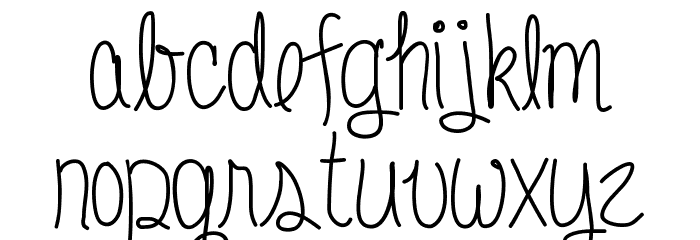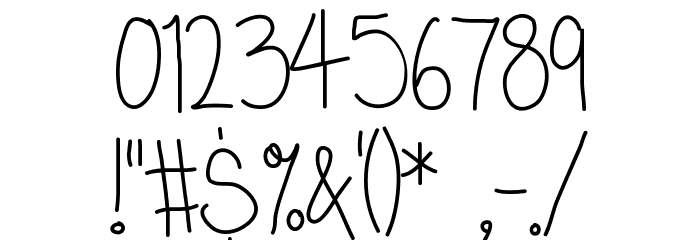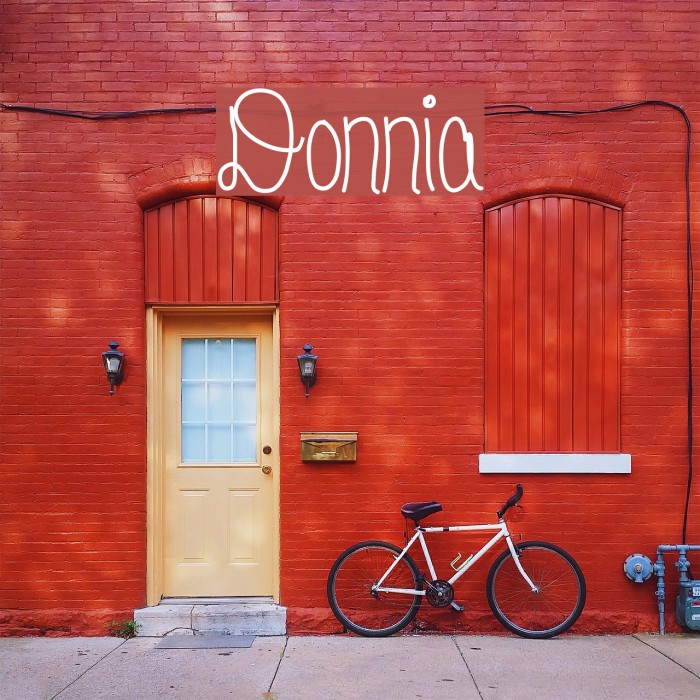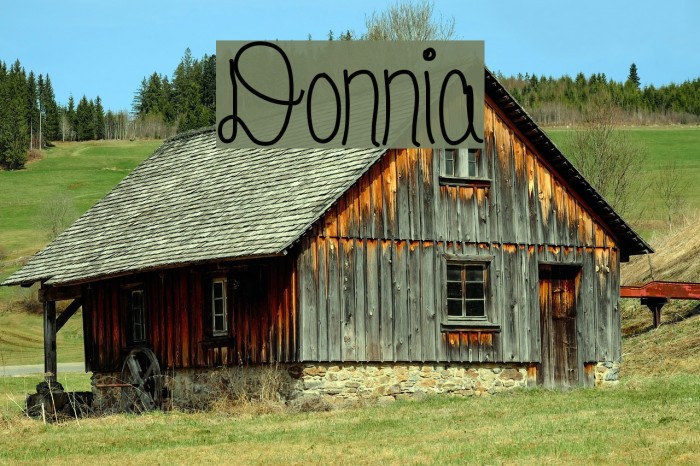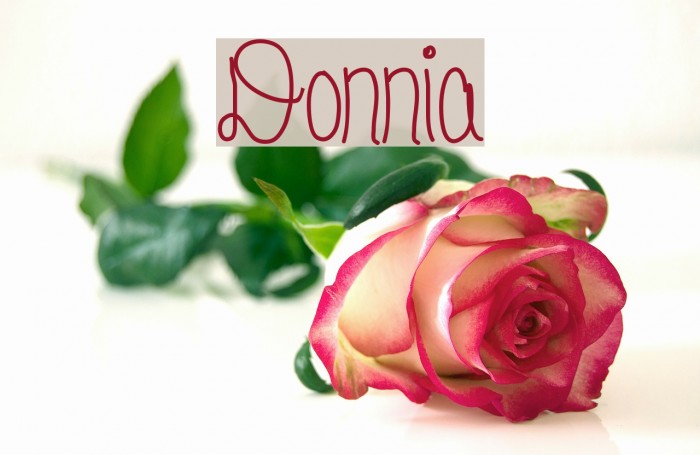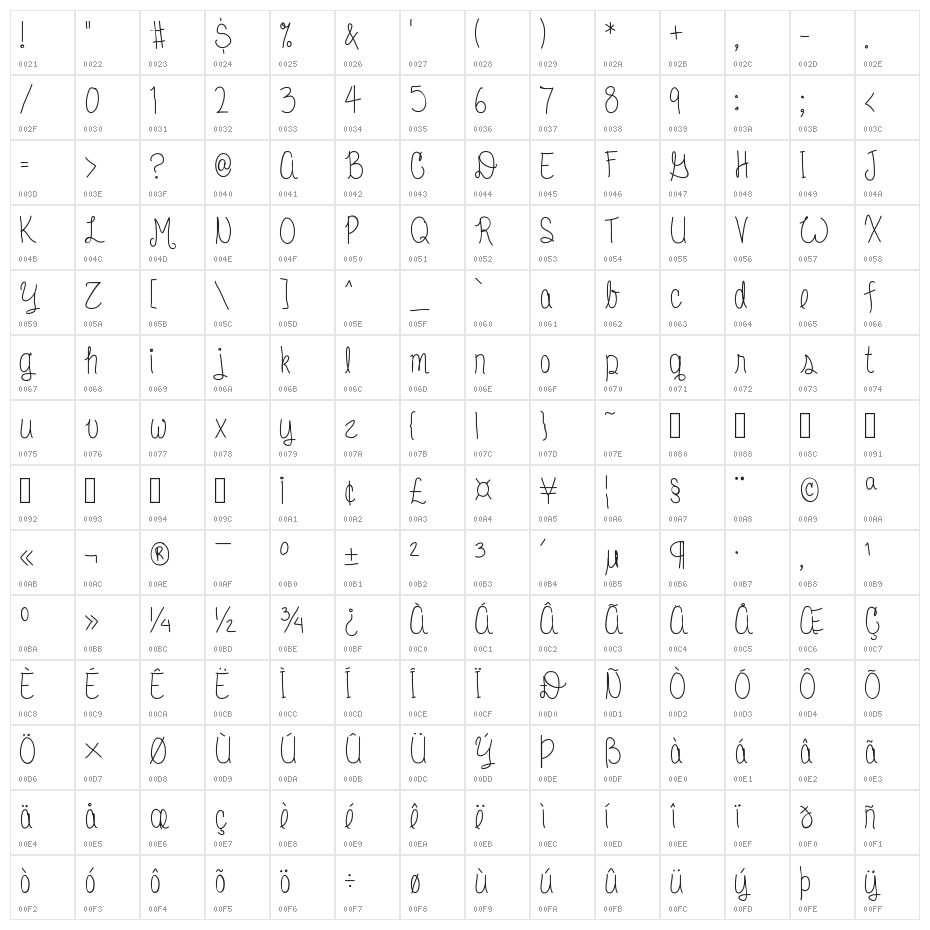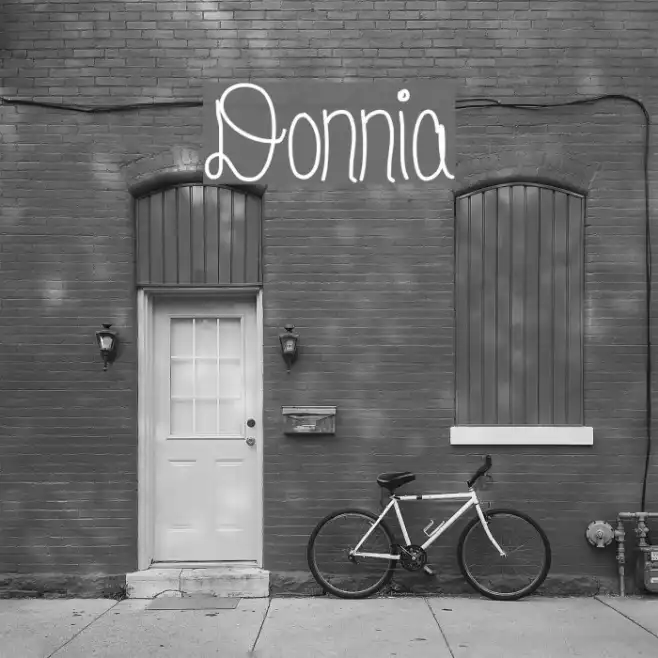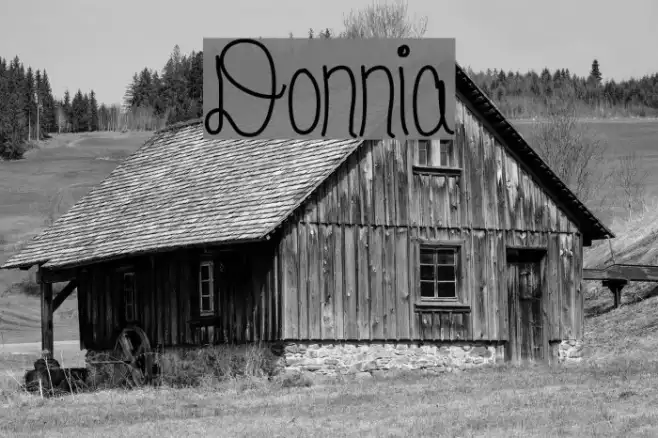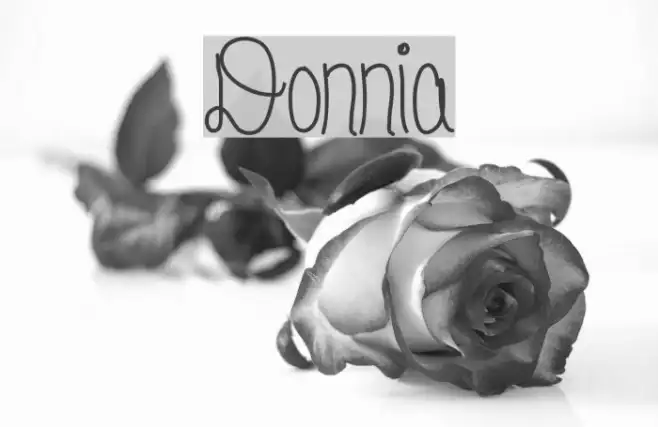
Donnia Font
This font features a playful and whimsical handwritten style, characterized by its flowing, looped strokes and a casual, informal appearance. The letters are tall and slender, with a consistent stroke width that gives it a uniform look. The uppercase letters have a distinctive flair, with some characters featuring unique curves and loops that add to the font's charm. The lowercase letters maintain the same playful style, with smooth connections between strokes that enhance readability. The numerals and special characters are designed to match the overall aesthetic, providing a cohesive look across all elements. This font is ideal for projects that require a personal touch, such as invitations, greeting cards, or creative branding.
A playful, handwritten font with flowing, looped strokes and a casual style.
- Proposed Projects: Ideal for invitations, greeting cards, creative branding, and personal projects.
- Overall Style: Playful, Whimsical
- Use Case: Headlines, Creative projects